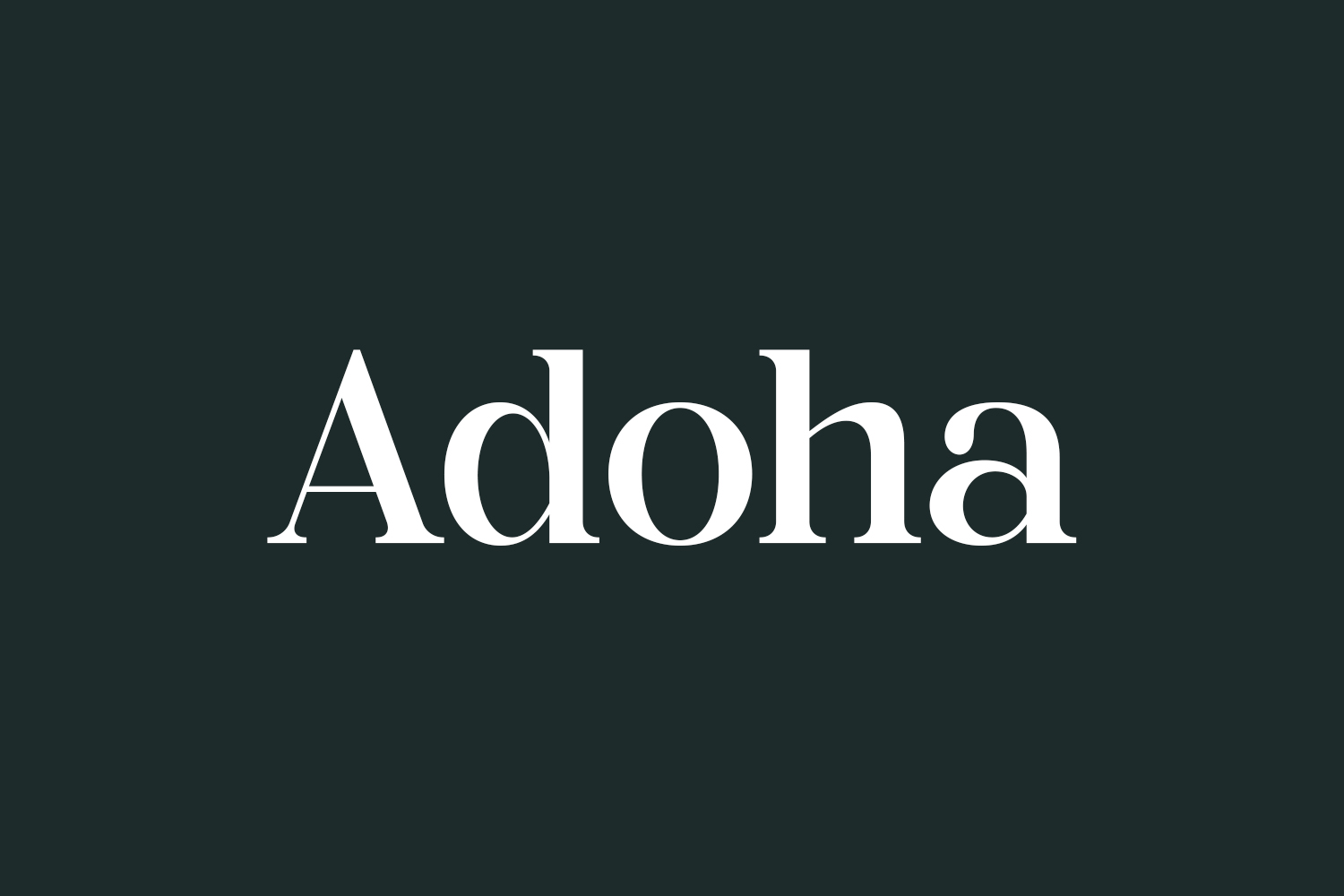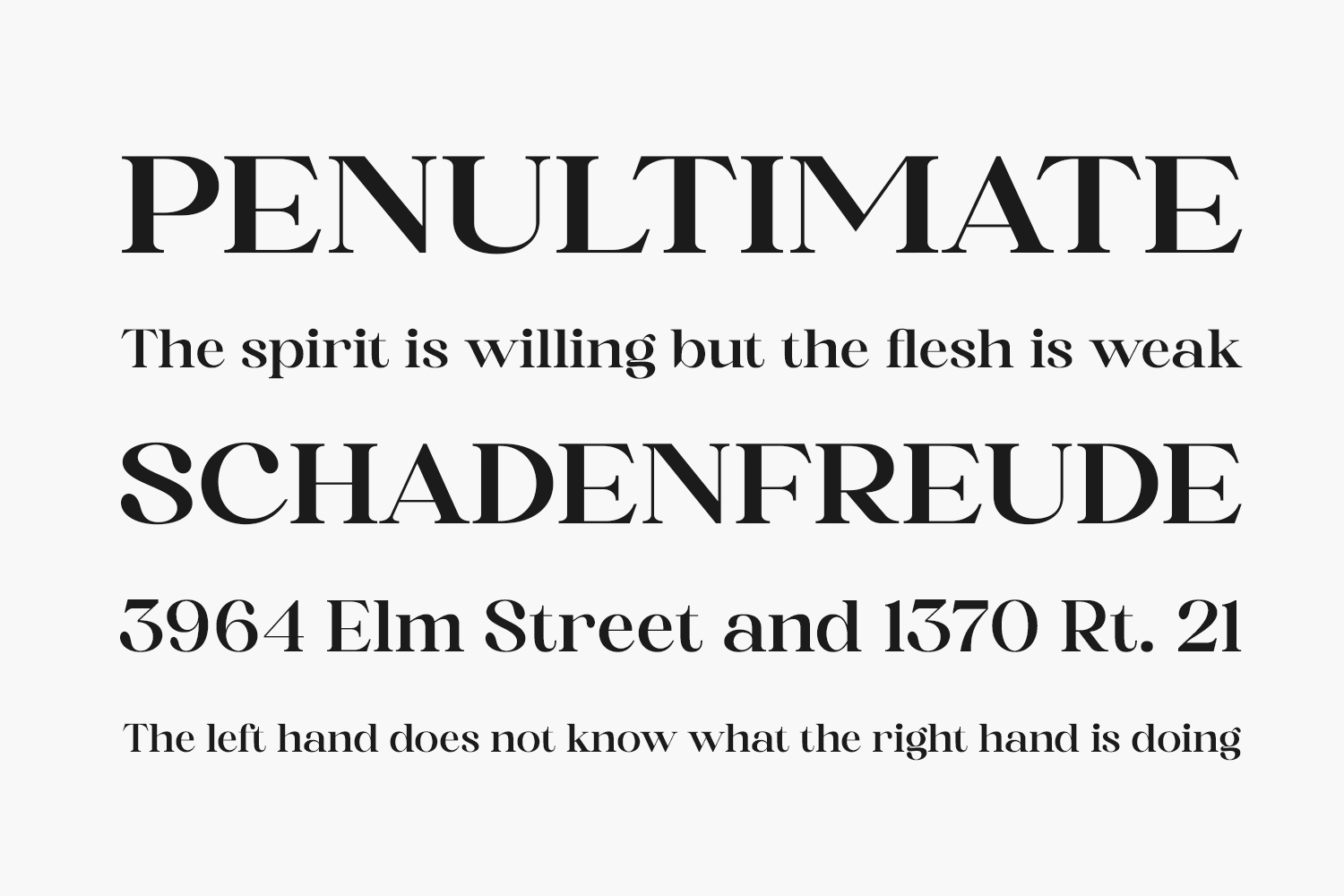
Introducing Adoha Free Font, a blend of modern and classic serif styles, exuding its own distinct flair and contemporary charm. Ideal for crafting elegant and luxurious logos, book or movie titles, fashion brands, magazines, clothing, lettering, quotes, and beyond. Download the font for free if you need it for personal use or purchase the full version for commercial use.